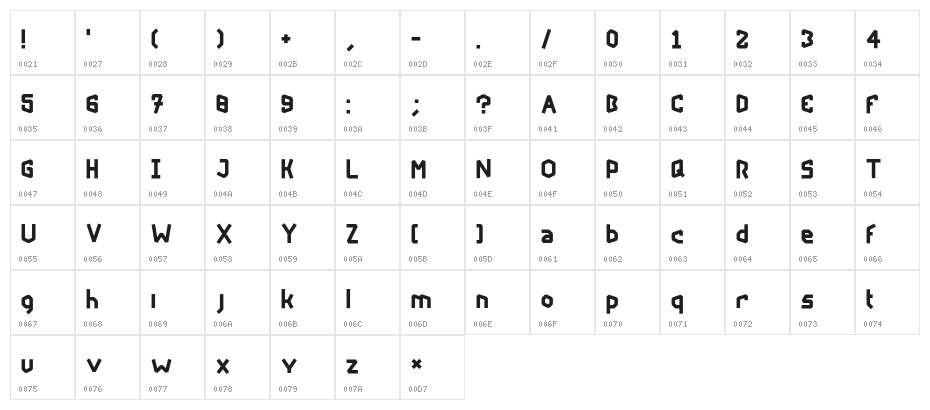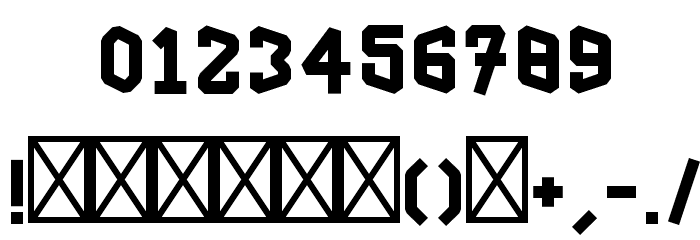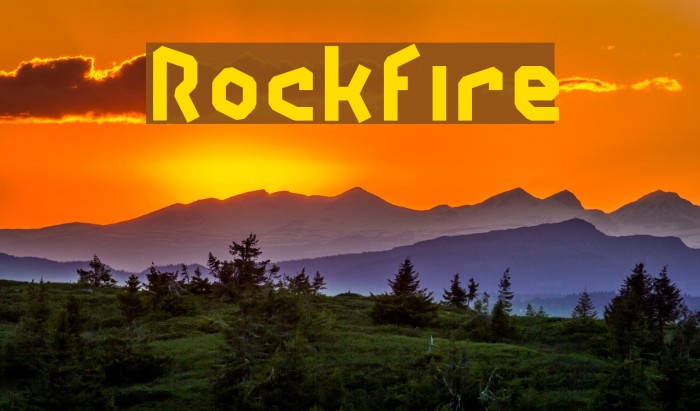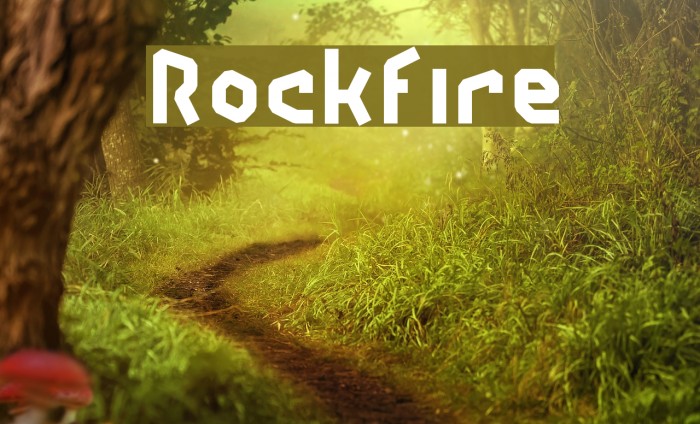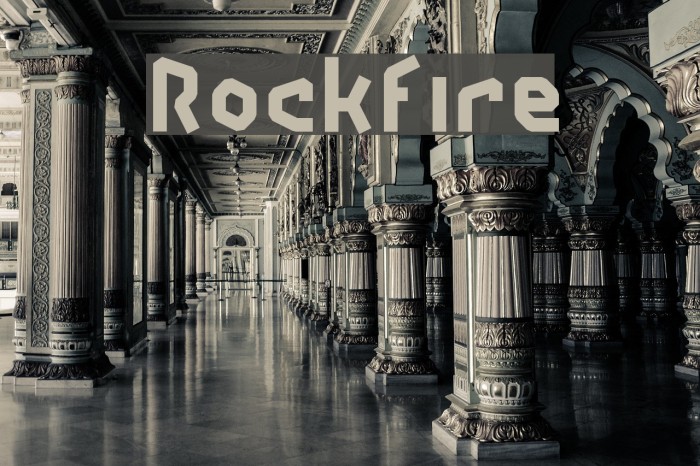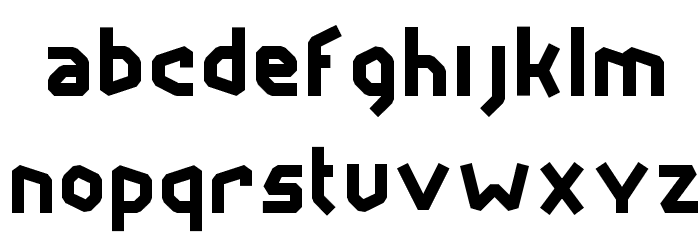
Rockfire Font
Rockfire Description
This font features a bold and angular design, characterized by its geometric and edgy letterforms. The uppercase and lowercase letters maintain a consistent style, with sharp angles and a blocky appearance that gives it a strong presence. The numbers and special characters follow the same design principles, ensuring uniformity across all glyphs. The font's unique style makes it stand out, with a modern and slightly futuristic vibe. Its boldness and distinctiveness make it suitable for attention-grabbing designs.
| Proposed Projects | Ideal for branding, posters, video game graphics, and any project requiring a strong, modern aesthetic. |